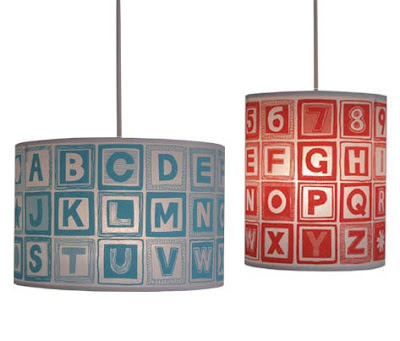
TypeFace Tuesday :: Helen Rawlinson No. 12 Drum ABC
This screen printed drum light would be absolutely perfect in a kid's room, don't you think?
An educational slant which covers the whole alphabet, numbers one to nine and six shapes. Screen printed by hand with individual machine stitching for dotted detail.